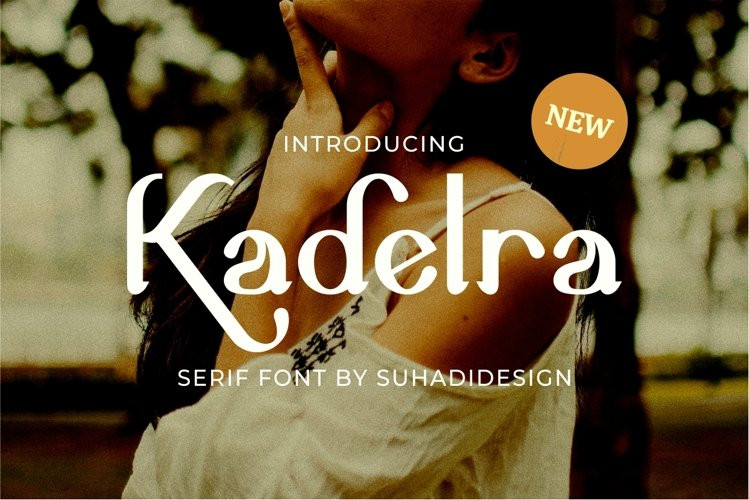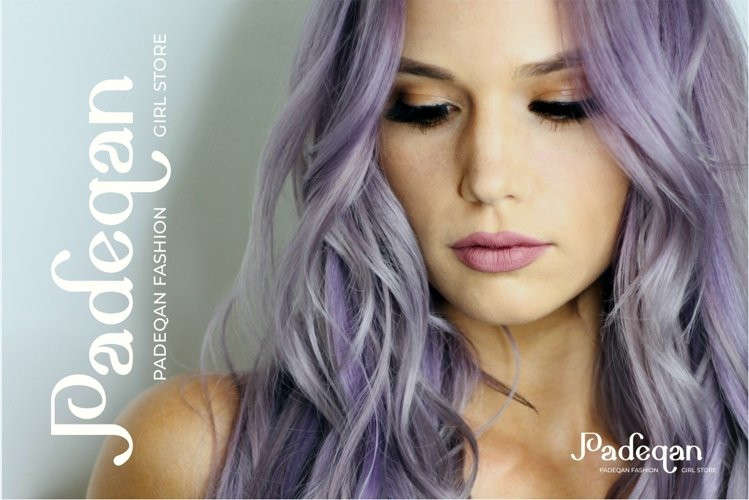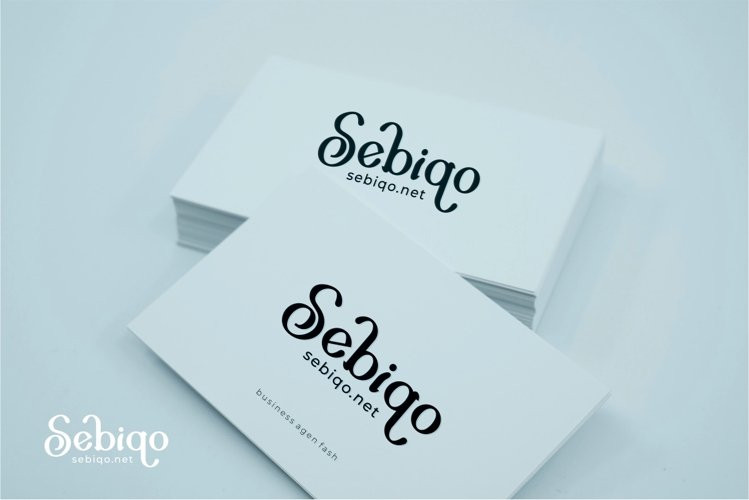
Kadelra Font
Kadelra Font The Kadelra font is an alternate and very popular serif font, comes in a modern style hoping to become a market favorite. We keep this font looking elegant, classy, ​​easy to read, stylish, attractive and easy to use. Kadelra Font is a great choice for beauty brands, magazines, newspapers, books, brand names, branding, brands, quotes, album covers and other projects. Kadelra fonts are here to take your designs to the next level.